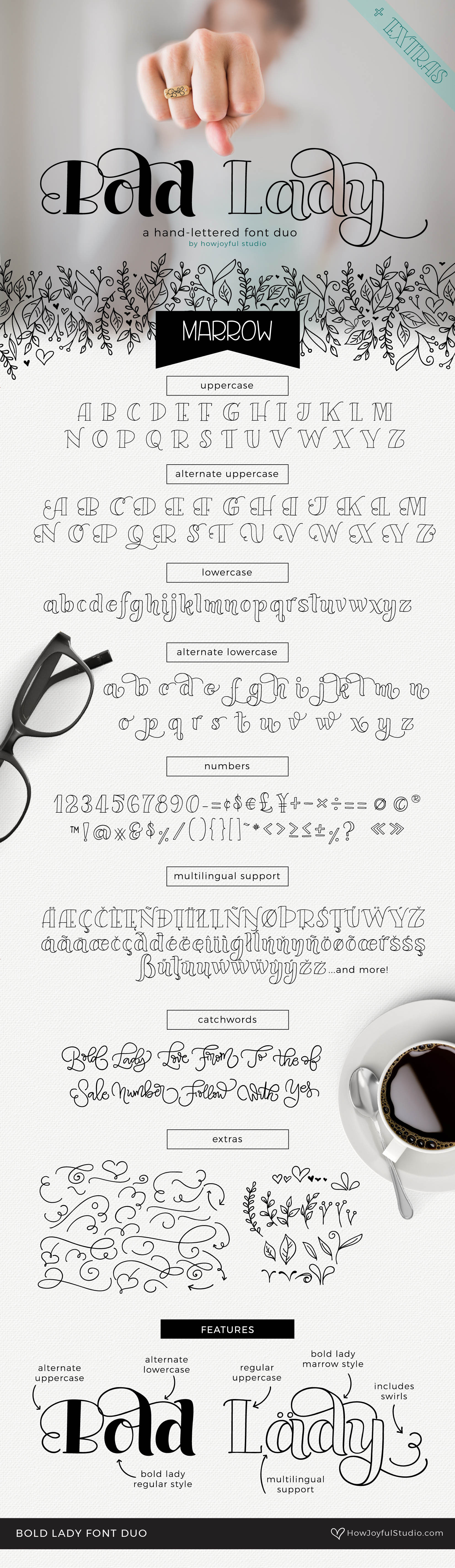
Bold Lady Font duo
Bold Lady is a hand-lettered font duo that includes a full secondary alphabet of alternates (uppercase and lowercase) as well as the Regular and Marrow style. It also features extras in a vector file with catchwords, florals, and swirls.
- Over 600 glyphs total
- Over 200 accented characters for multiple language support
- Extra symbols font with over 40 dingbats for flourishes.
- Coded OpenType features: stylistic alternates, swashes, and ligatures